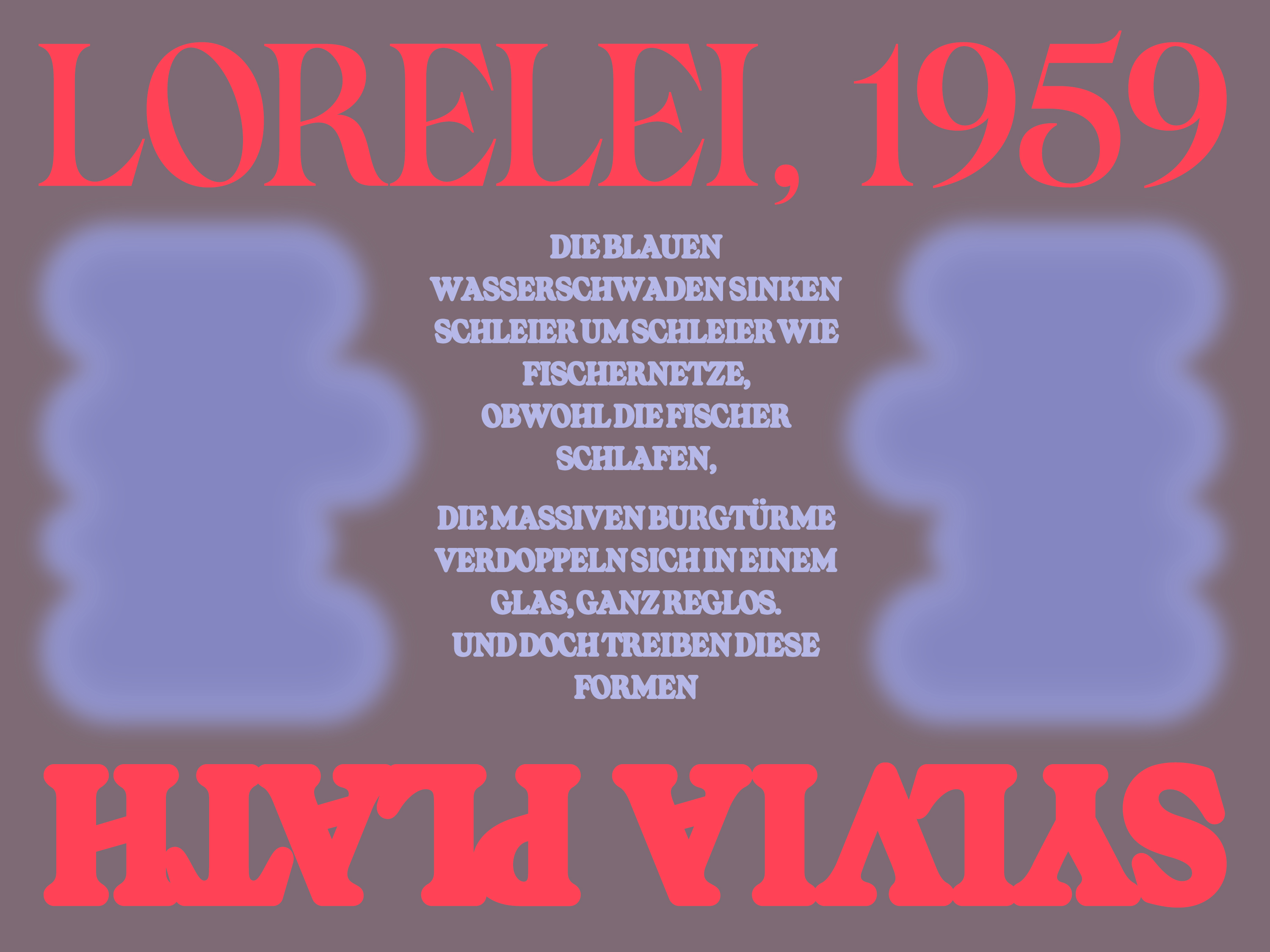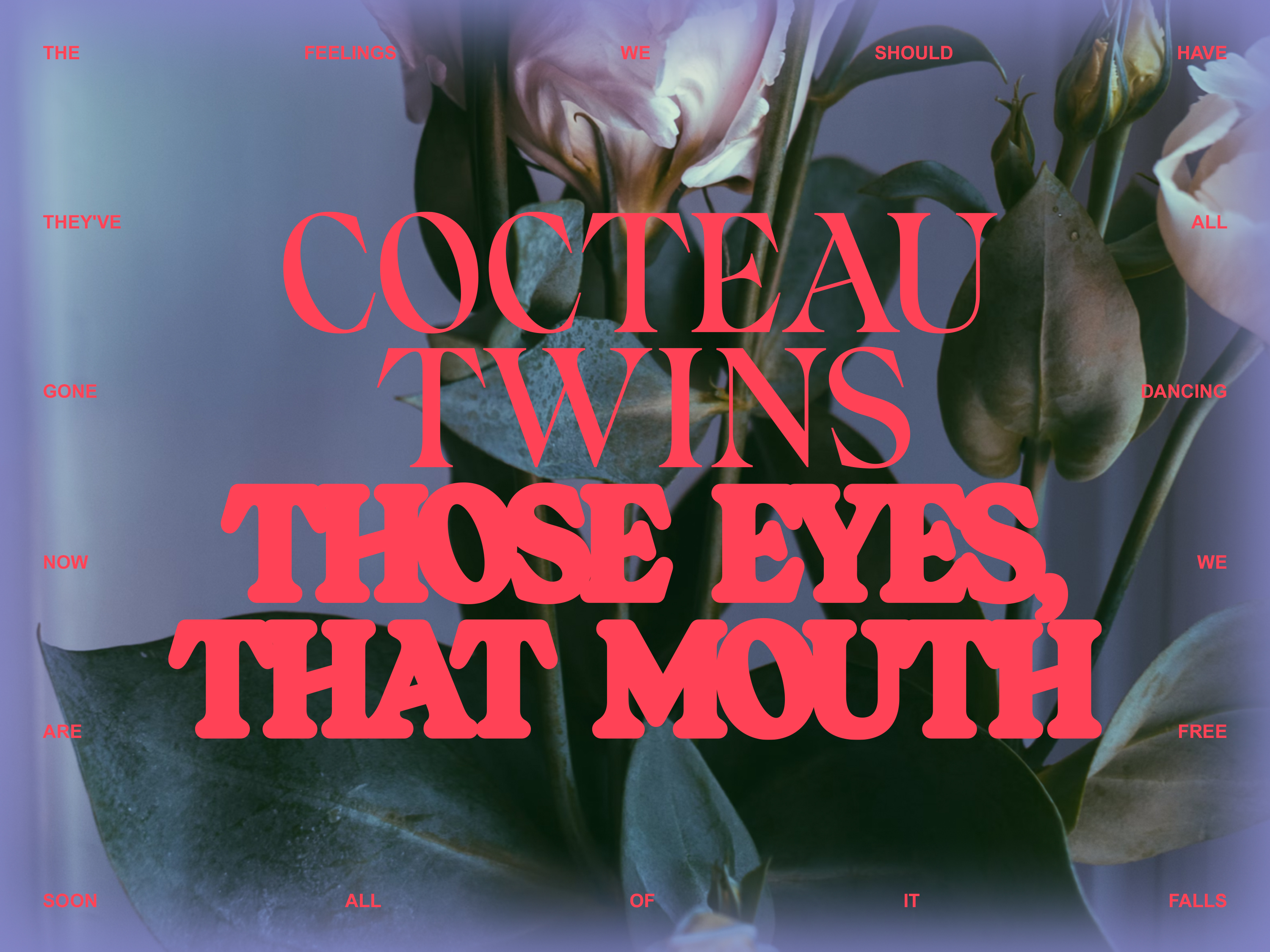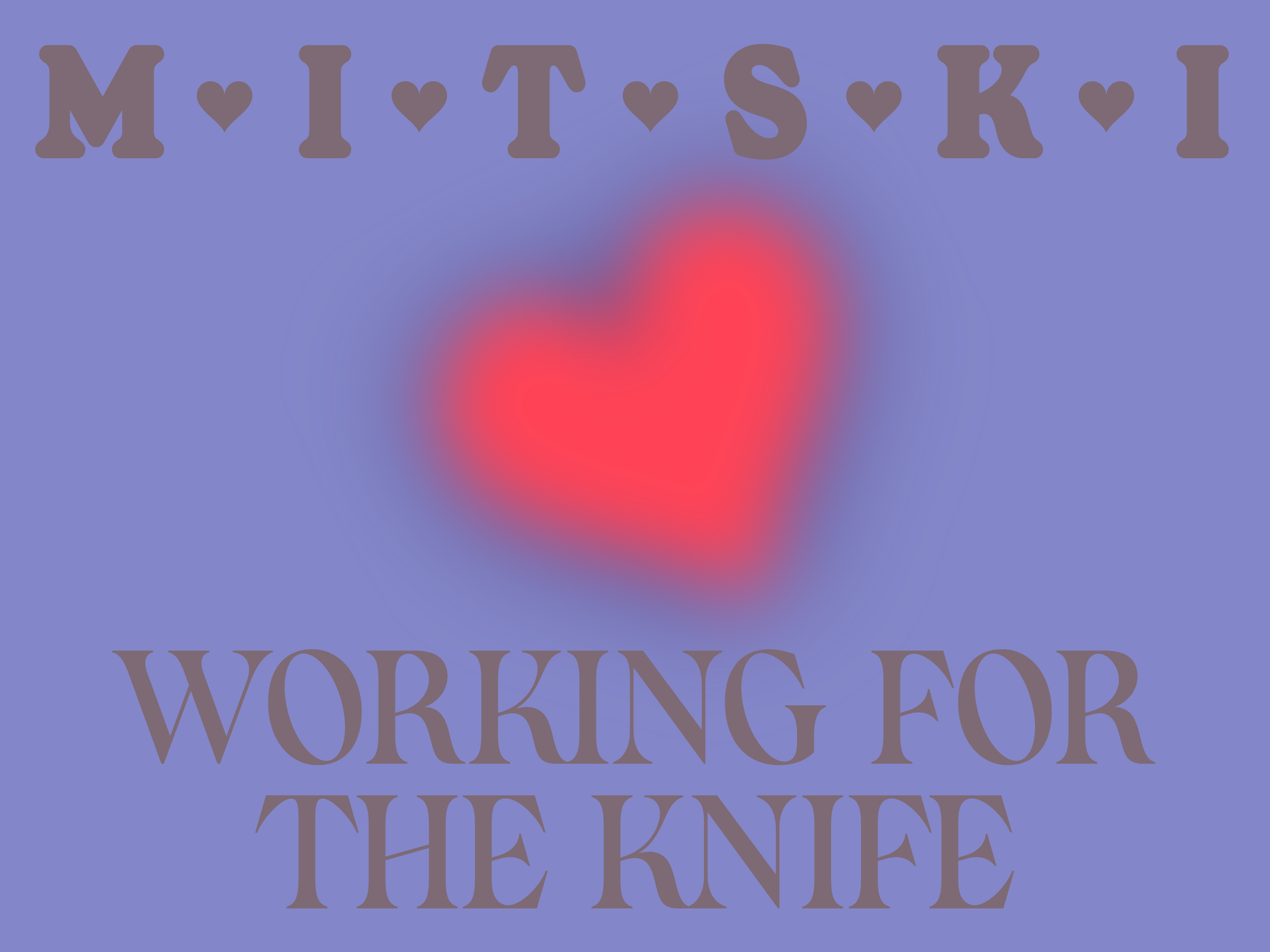
Noemia is a rococo fever dream. Available in Serif and Soft, it offers two contrasting display styles.
Naomie Soft is thick and dreamy. Its letterforms share the same structure as Naomie Serif, but here they are pillowy, with split terminals that look much more like hearts.
Featuring all uppercase characters with punctuation, glyphs, diacritics, numerals, and multilingual support. OpenType features include stylistic alternates and 42
custom ligatures.